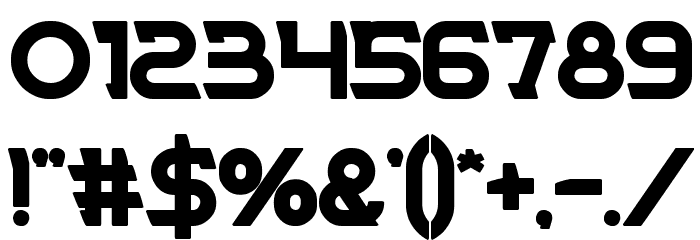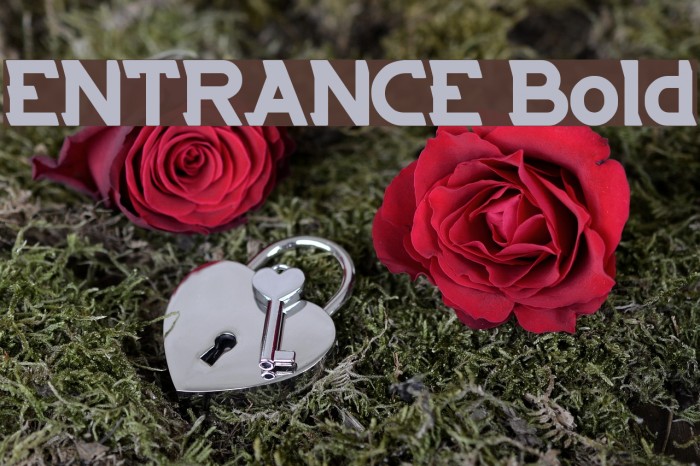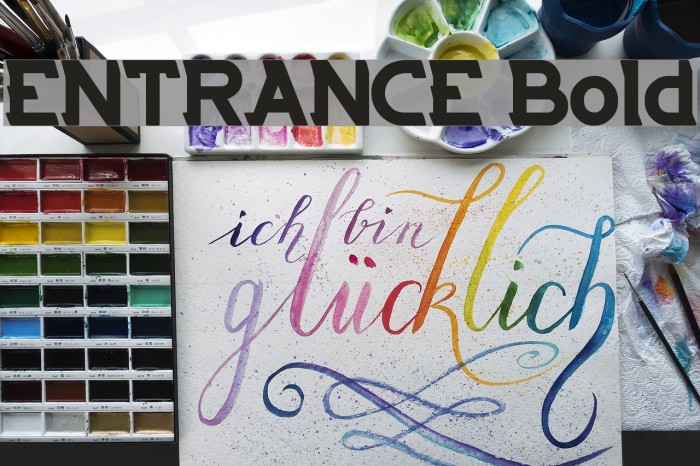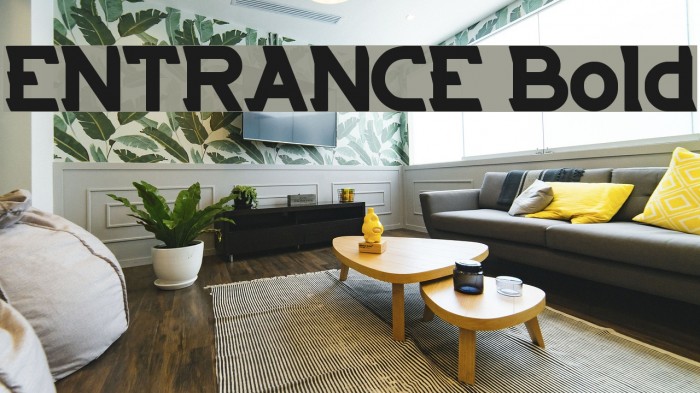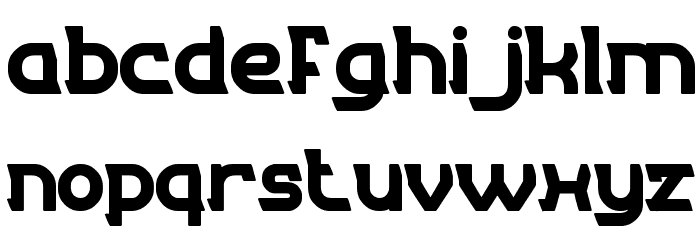
ENTRANCE Bold Font
ENTRANCE Bold Description
This bold, geometric font features a unique and modern design with angular cuts and a strong presence. The uppercase letters are particularly striking, with a futuristic aesthetic that is both eye-catching and memorable. The lowercase letters maintain the same boldness, ensuring consistency across text. Numbers and special characters are designed with the same angular style, making them stand out. The font's distinct appearance makes it ideal for projects that require a modern and bold statement.
A bold, geometric font with angular cuts and a modern, futuristic style from Uncategorized fonts.
- Proposed Projects: Ideal for branding, posters, headlines, and any project needing a bold, modern look.